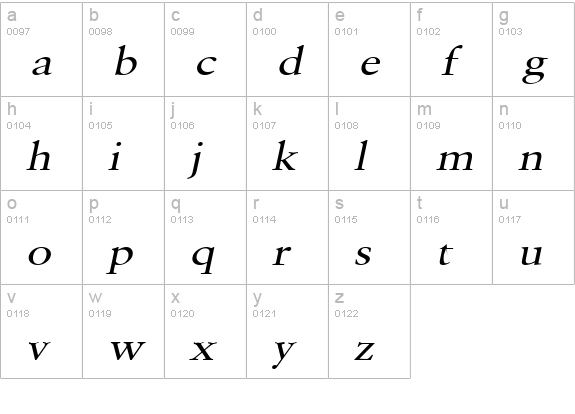
Garrick Wide Italic is a distinctive, extended-width, italic variant in the Garrick typeface family \xE2\x80\x94 well suited to design and typography projects.
Garrick Wide Italic font exudes sophistication and elegance with its sleek and modern design. The italic style adds a touch of flair and creativity, making it perfect for projects that require a touch of personality. Its wide proportions give it a unique presence that demands attention. The Garrick Wide Italic font is not only visually striking but also highly versatile, suitable for a wide range of design projects including branding, advertising, and editorial work. Its crisp and clean lines make it easy to read, ensuring clear communication of your message. Best of all, the Garrick Wide Italic font is available for free download at FontsMarket.com. Now you can add this stylish and contemporary font to your collection without breaking the bank. Enhance your designs with the Garrick Wide Italic font and make a bold statement that will captivate your audience.